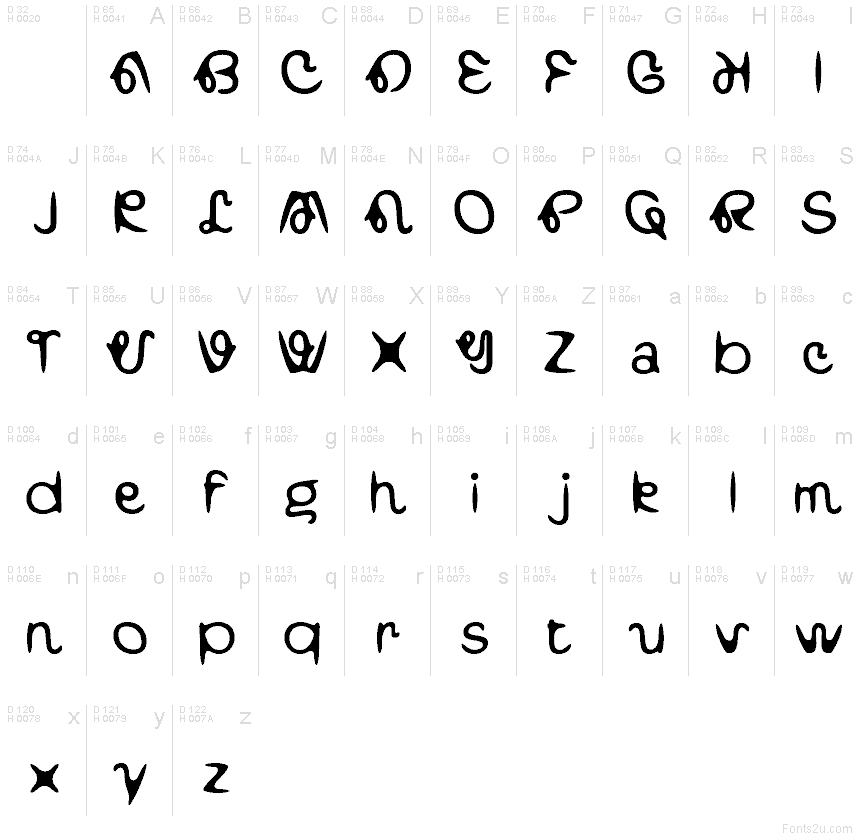
CSLemonDrawn-Regular Demo
CS Lemon Drawn font by Craft Supply Co. is a free bold brush display font that leans into a juicy, hand‑painted rhythm. Thick, inky strokes swell into soft bulb terminals, and the gentle wobble between curves gives it a friendly, tactile presence—like wet paint that’s just set. Part of the CS Lemon family, it keeps counters open and spacing airy, so headlines feel lively without turning messy.
Using CS Lemon Drawn, your work shines on juice bar logos, kids’ packaging, handmade soap labels, summer event posters, greeting cards, and playful social graphics. This free font carries warmth that reads instantly, even at a glance. For a simple pairing, set body copy in a clean sans and keep subheads within the CS Lemon family to maintain cohesion.